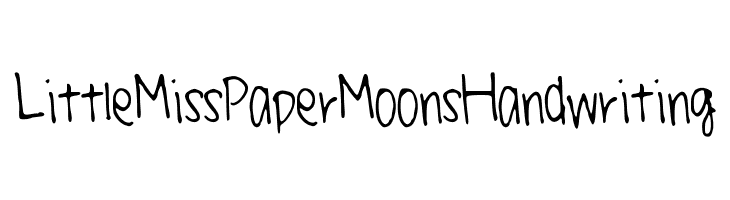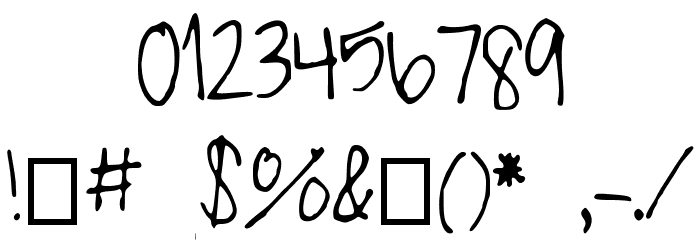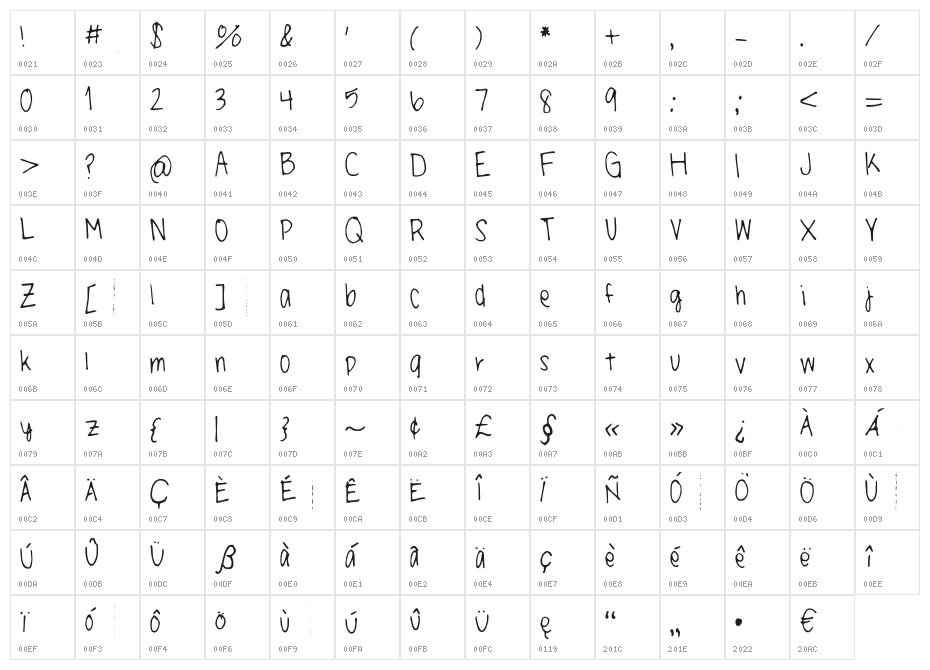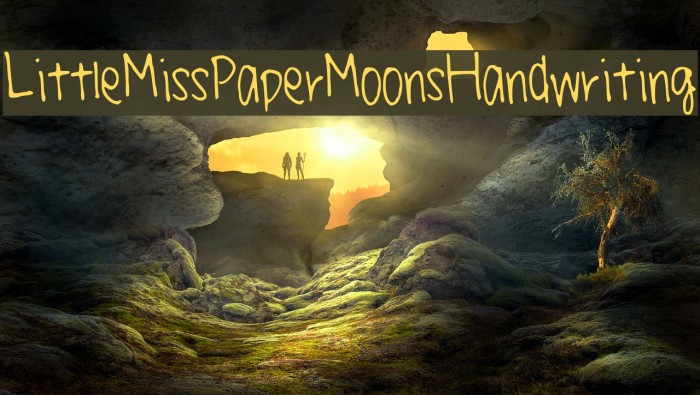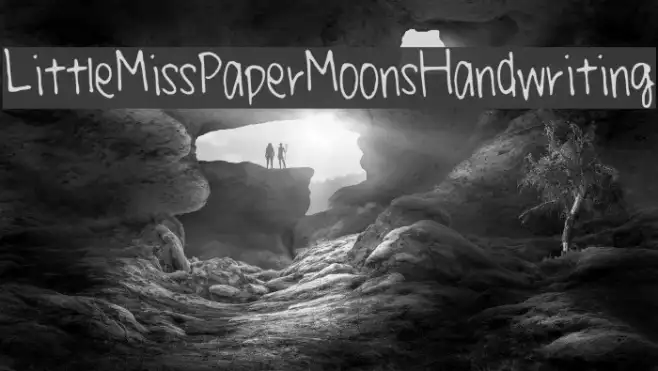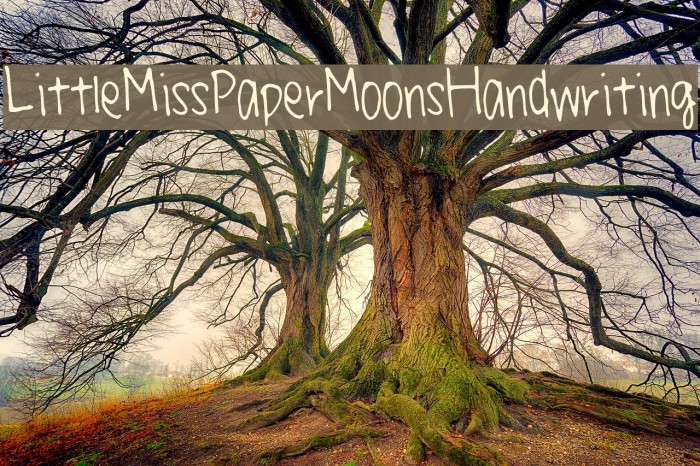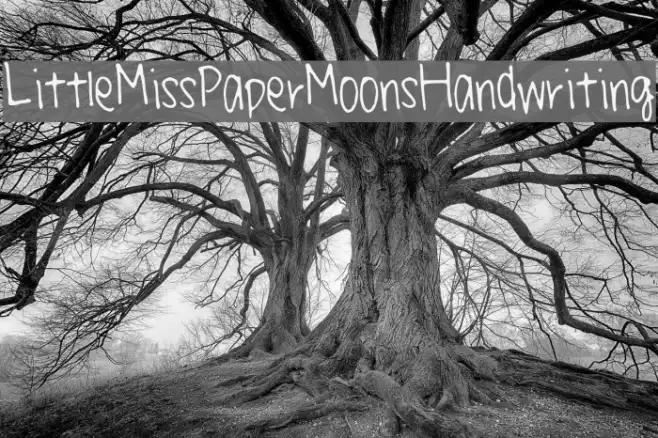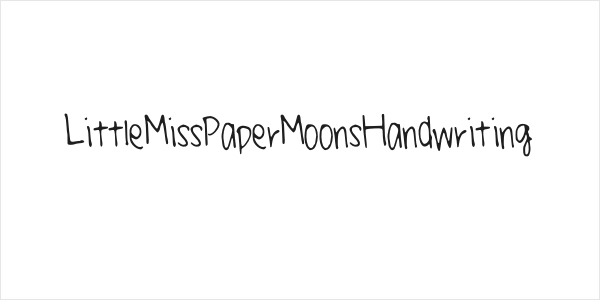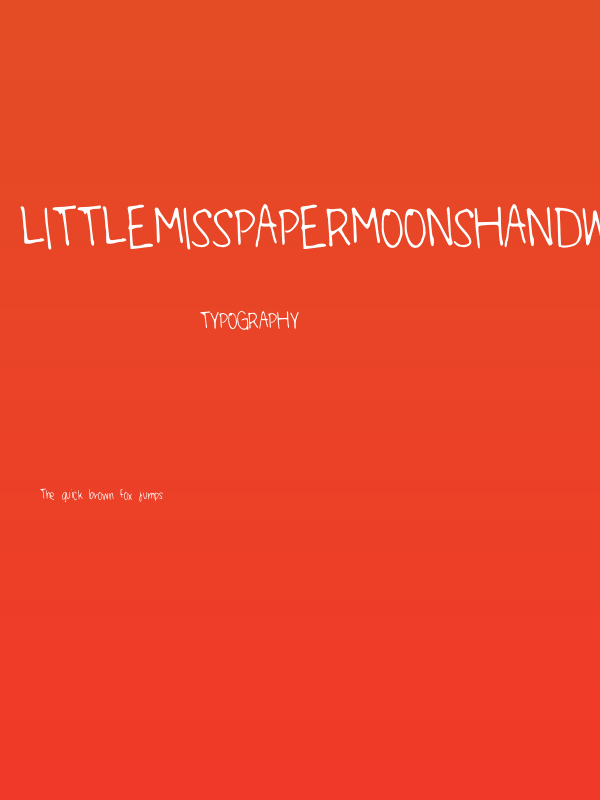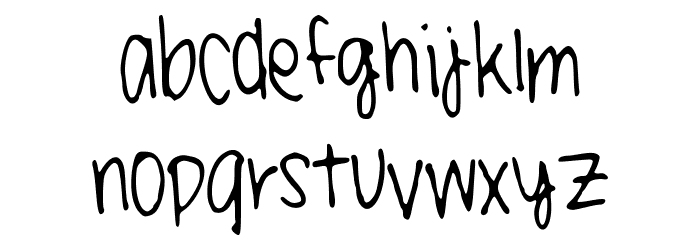
LittleMissPaperMoonsHandwriting Font
LittleMissPaperMoonsHandwriting Description
This font exudes a playful and casual handwritten style, characterized by its uneven strokes and slightly irregular letterforms that mimic natural handwriting. The uppercase and lowercase letters maintain a consistent flow, with rounded edges and a slight tilt, adding to its informal charm. The numerals and special characters follow the same style, ensuring a cohesive look throughout. Its legibility is high due to the clear distinction between characters, making it suitable for various creative projects. The overall appearance is friendly and approachable, perfect for conveying a personal touch.
| Use Case | Greeting cards, Personal notes, Informal branding |
| Proposed Projects | Ideal for greeting cards, personal notes, children's books, and informal branding projects. |